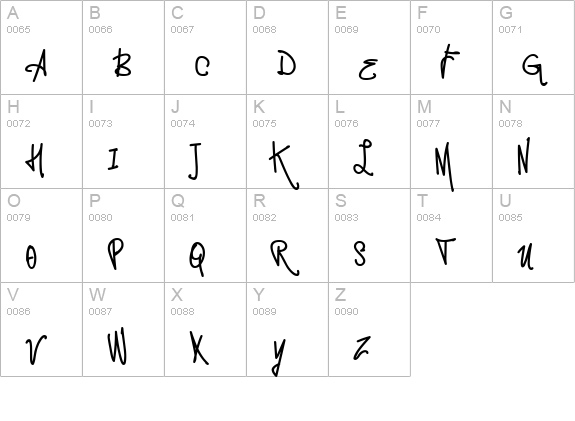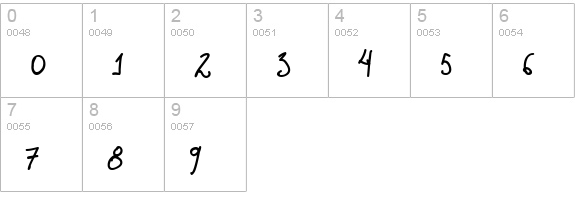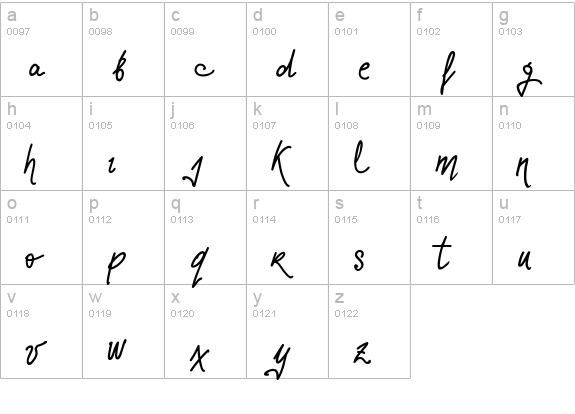
Vtks Delicious Font Details
Vtks Delicious is a delectable and charming font that exudes a sense of warmth and playfulness. Its flowing curves and unique handwritten style make it perfect for adding a touch of whimsy to your projects. Whether you're designing a menu, invitation, or any other creative endeavor, Vtks Delicious is sure to bring a delightful flair to your work. The best part? Vtks Delicious is available for free download at FontsMarket.com. This means you can easily access this delightful font and add it to your collection without any cost. Embrace the sweetness of Vtks Delicious and elevate your designs with its irresistible charm. Download it now and let your creativity shine!